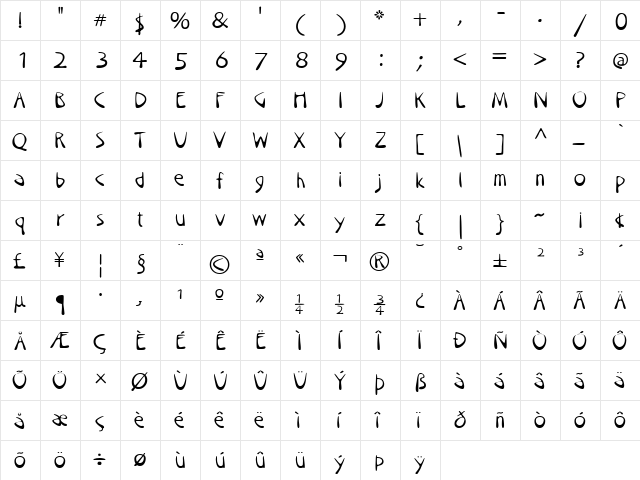
Utshani Regular
| Foundry | Scholtz Fonts |
| Designer | Anton Scholtz |
Design Context for Utshani Typeface
Utshani takes a measured approach to typography — its balanced proportions and neutral character make it a reliable workhorse for both digital and print work.